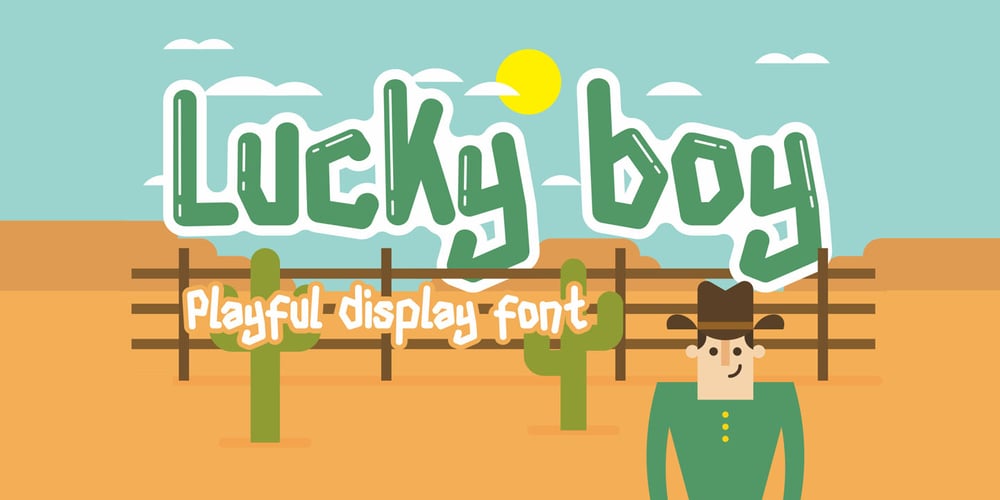
Lucky Boy Font Family was designed by Sipanji and published by Sipanji21. Lucky Boy contains 1 styles and family package options. lucky boy is a display font that has a cute character, whether it is used for various themes of children, love, or others. This font is good for crafting, packaging, apparel, comics, book titles, t shirts. and others.